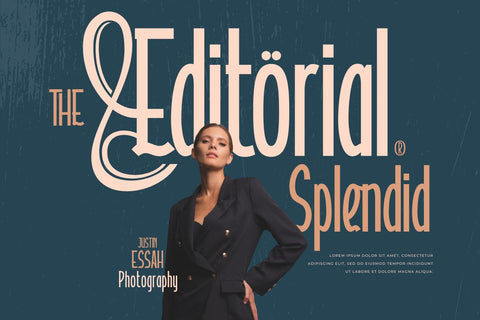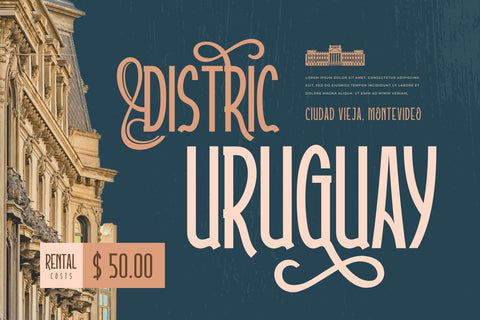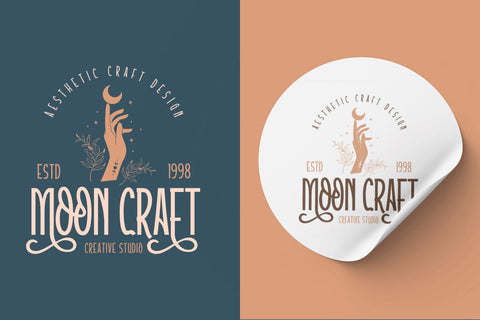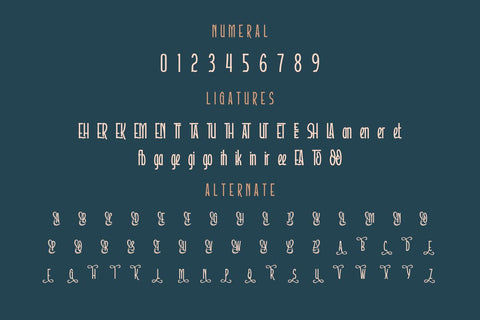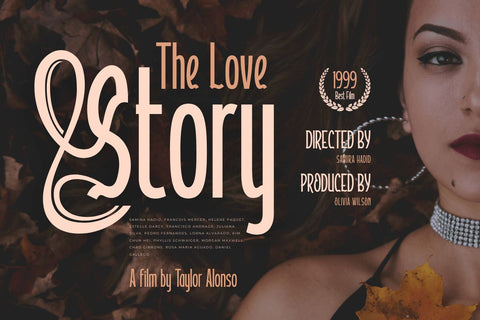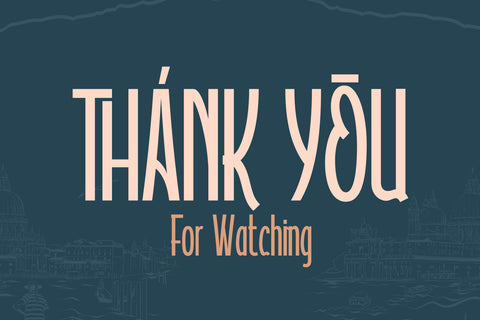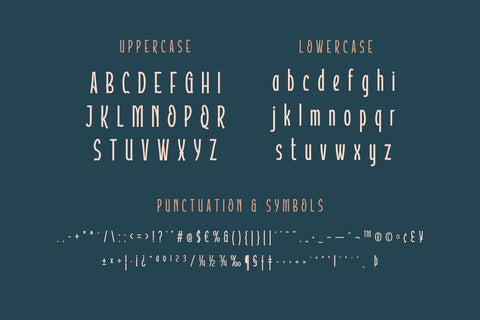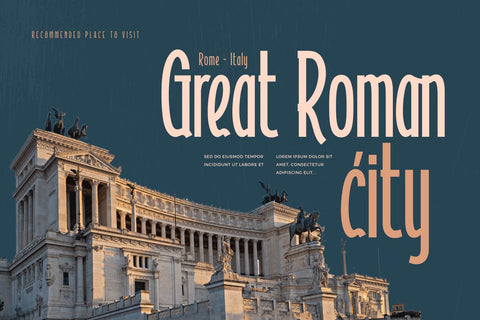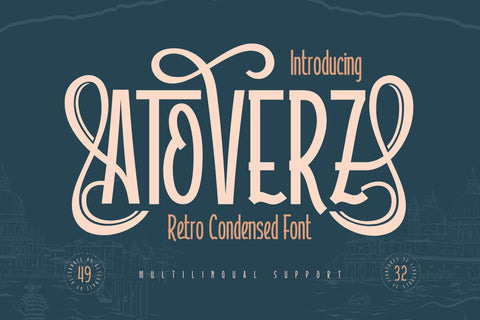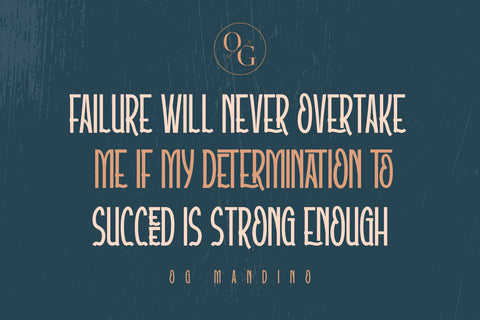
Atoverz – Retro Condensed Font
Introducing Atoverz, the perfect retro condensed font for your next project. This font features a classic retro design that is both stylish and functional. With 49 curved alternate characters and 32 beautiful ligatures, Atoverz allows you to easily create unique and stunning designs. Its multilingual support also ensures you can use it for projects in any language.